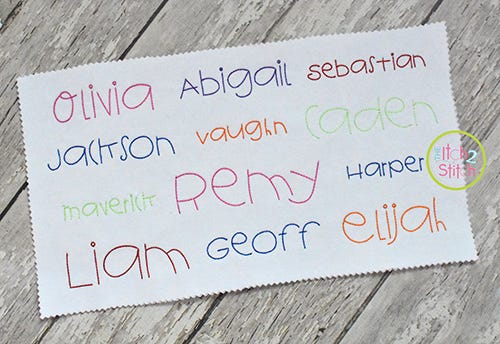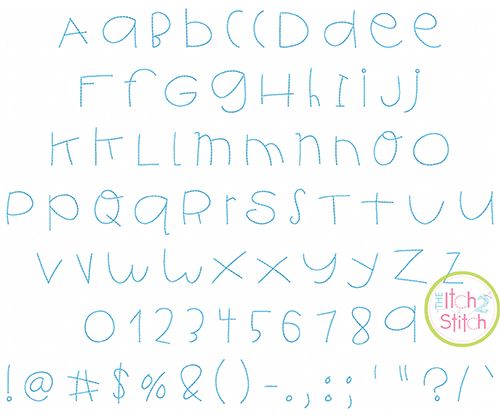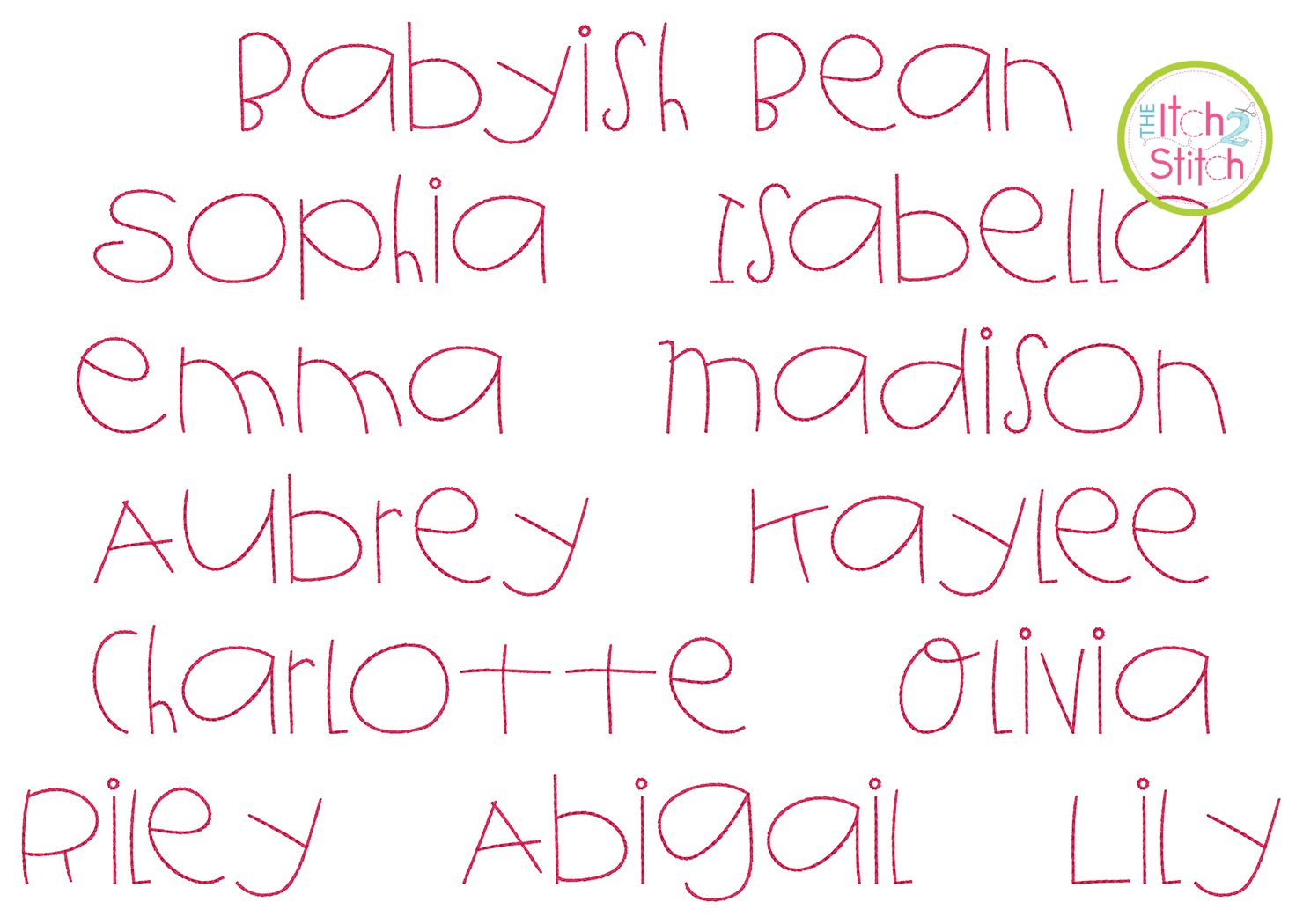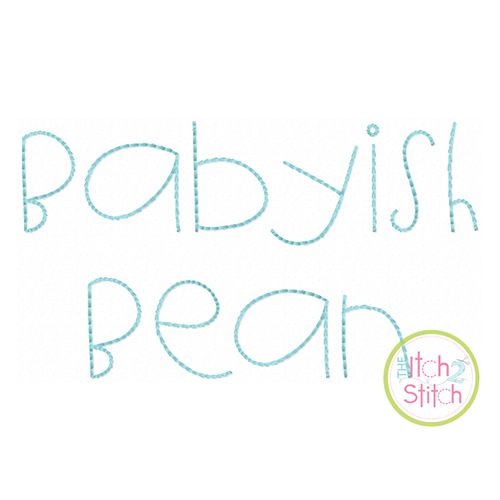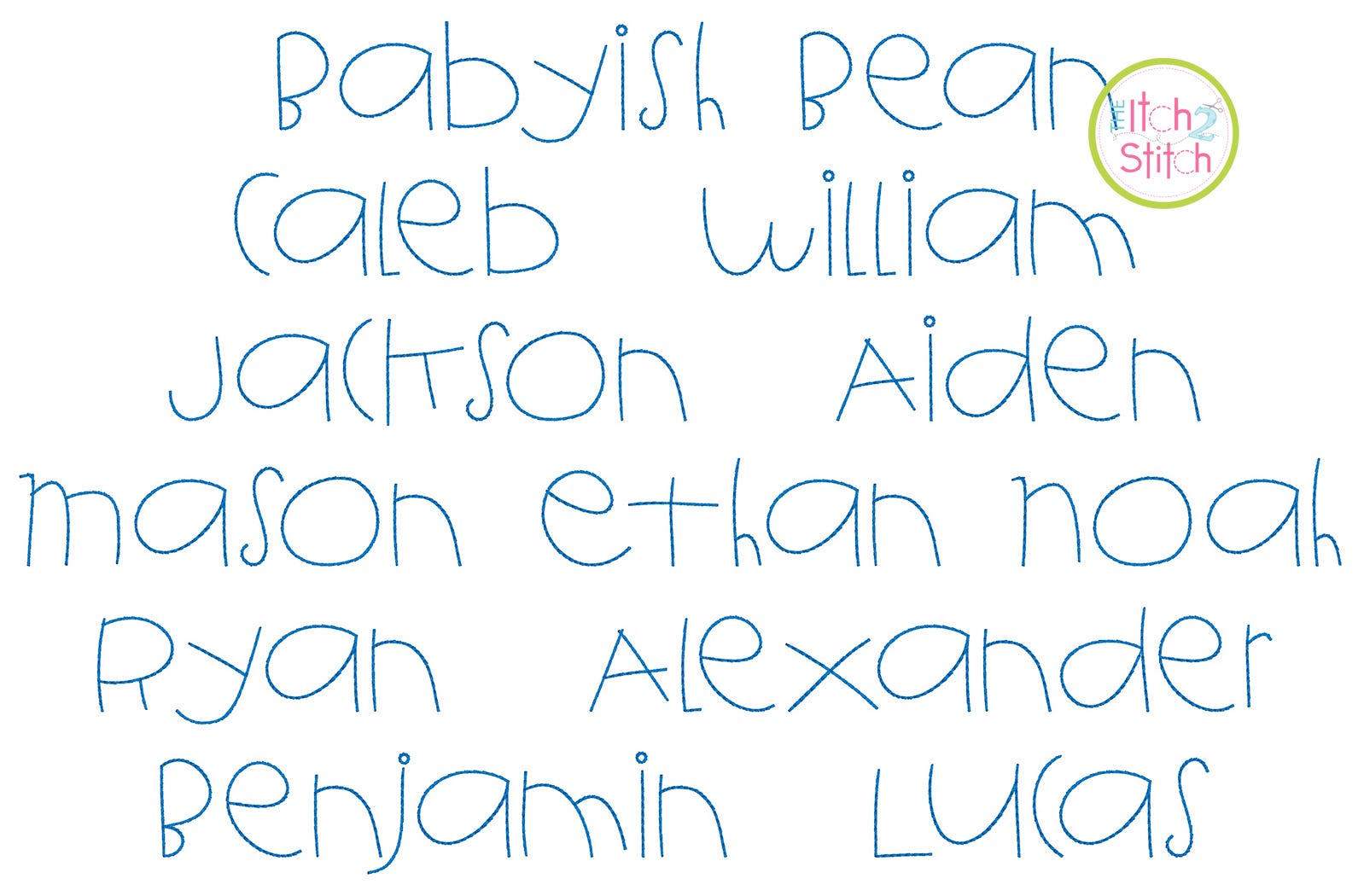
Babyish Bean Stitch Embroidery Font
You will receive all Aa-Zz letters, numbers, and punctuation (80 files) in eleven sizes. The font sizes are based on the height of the capital I, then scaled appropriately in keeping with the original artwork. In this fun and quirky font, there is no consistency to the height nor width of each letter, so text designs will likely have an overall height greater than the stated size. Due to scale, a few files from the 3" size do not fit in a 4x4 hoop.
This is a five-pass backstitch font originally designed to stitch on fabric, not card stock.